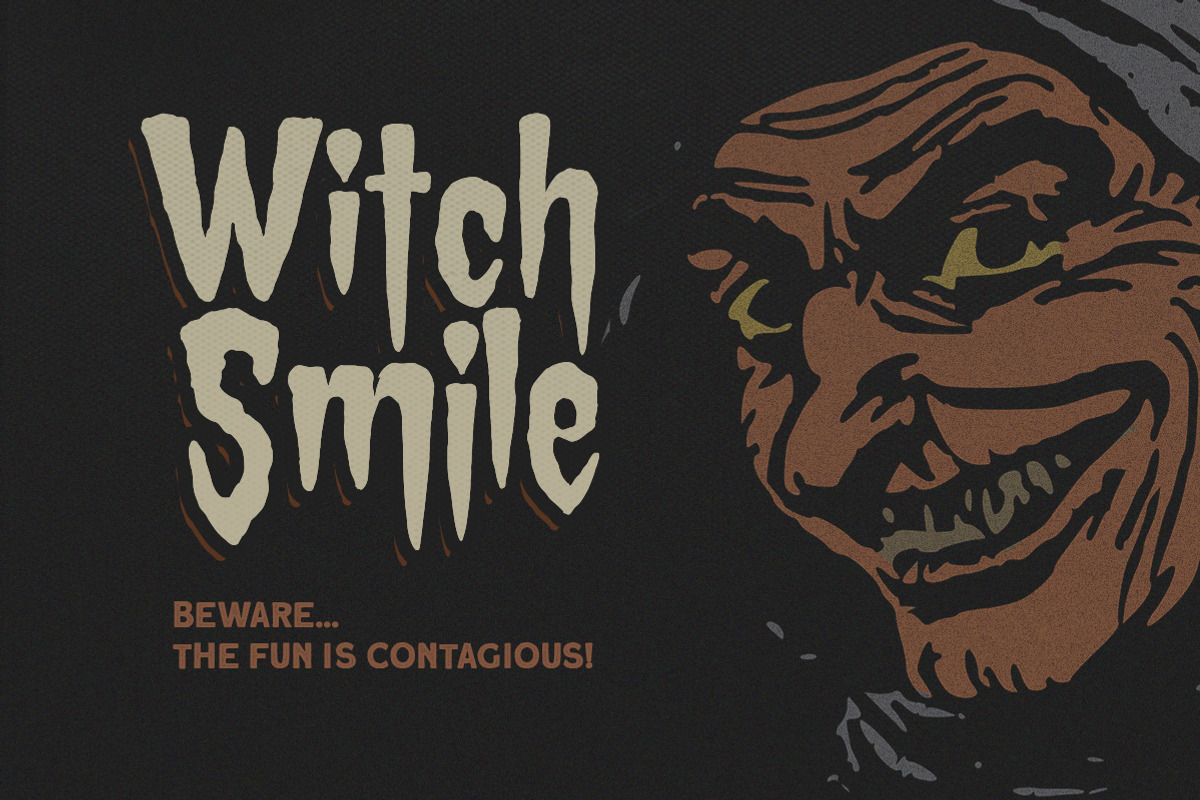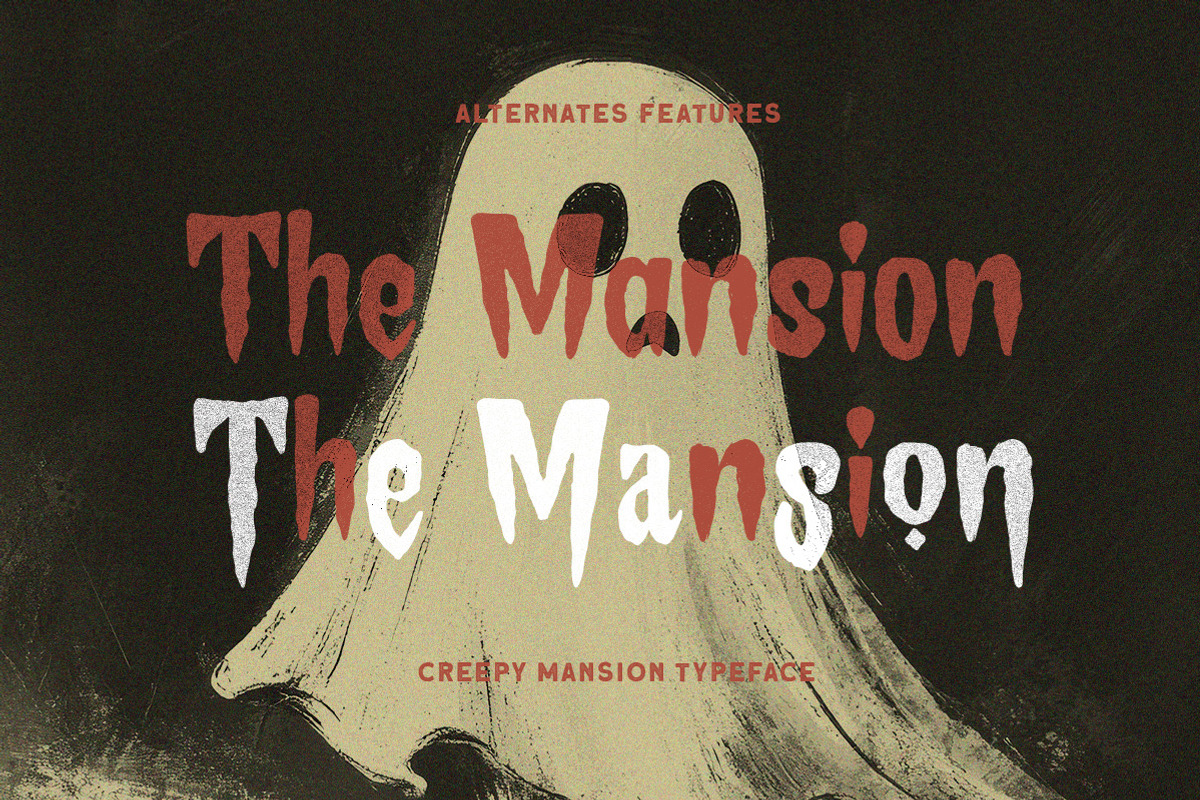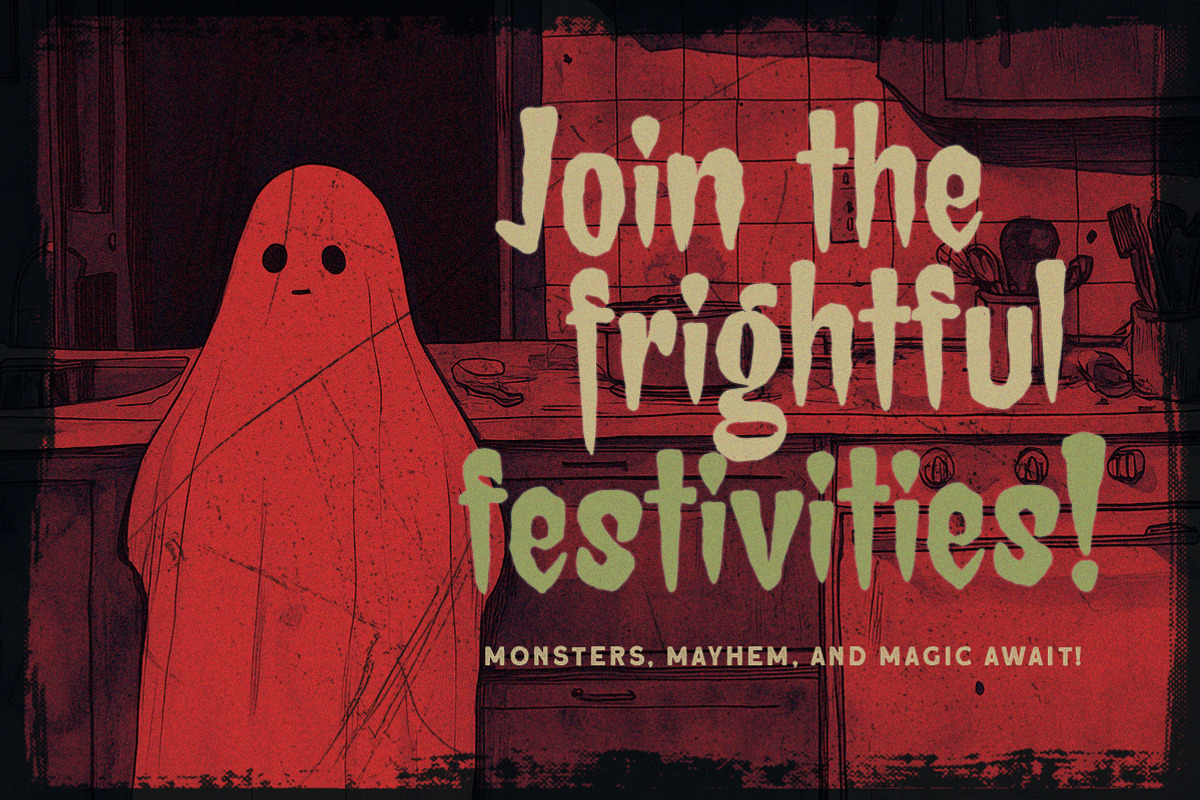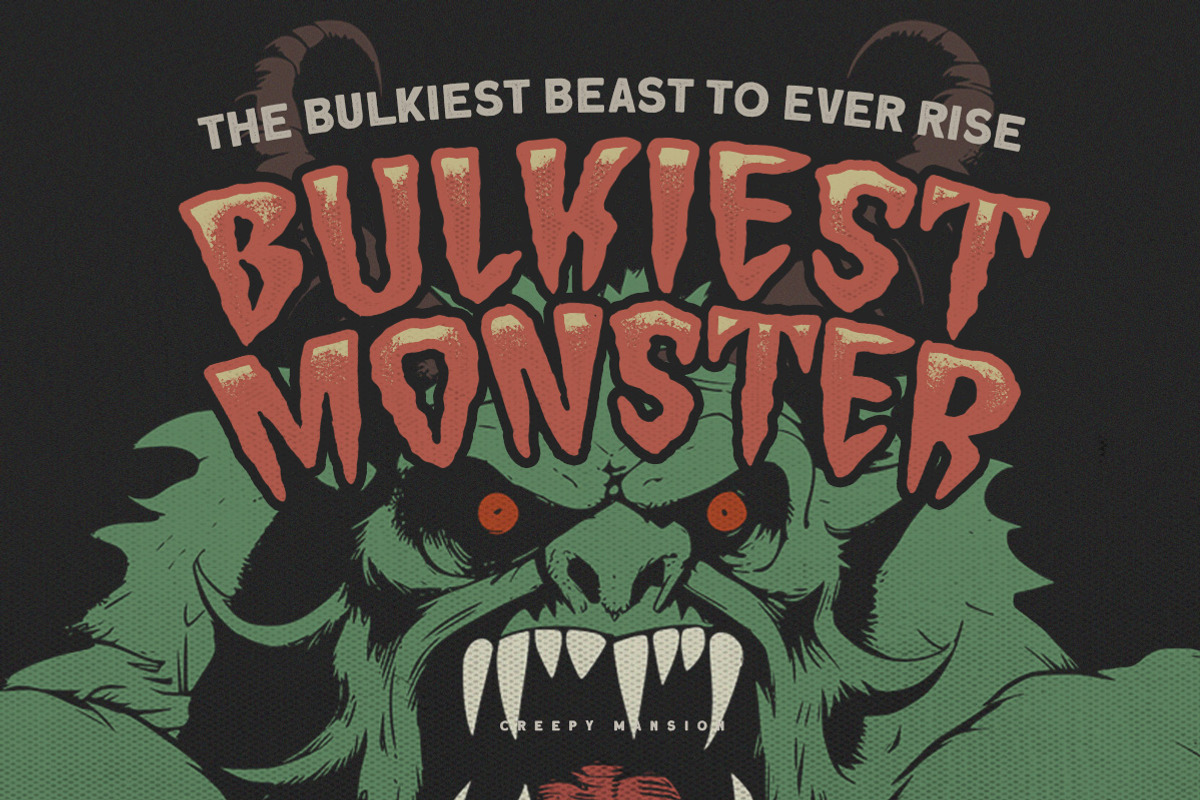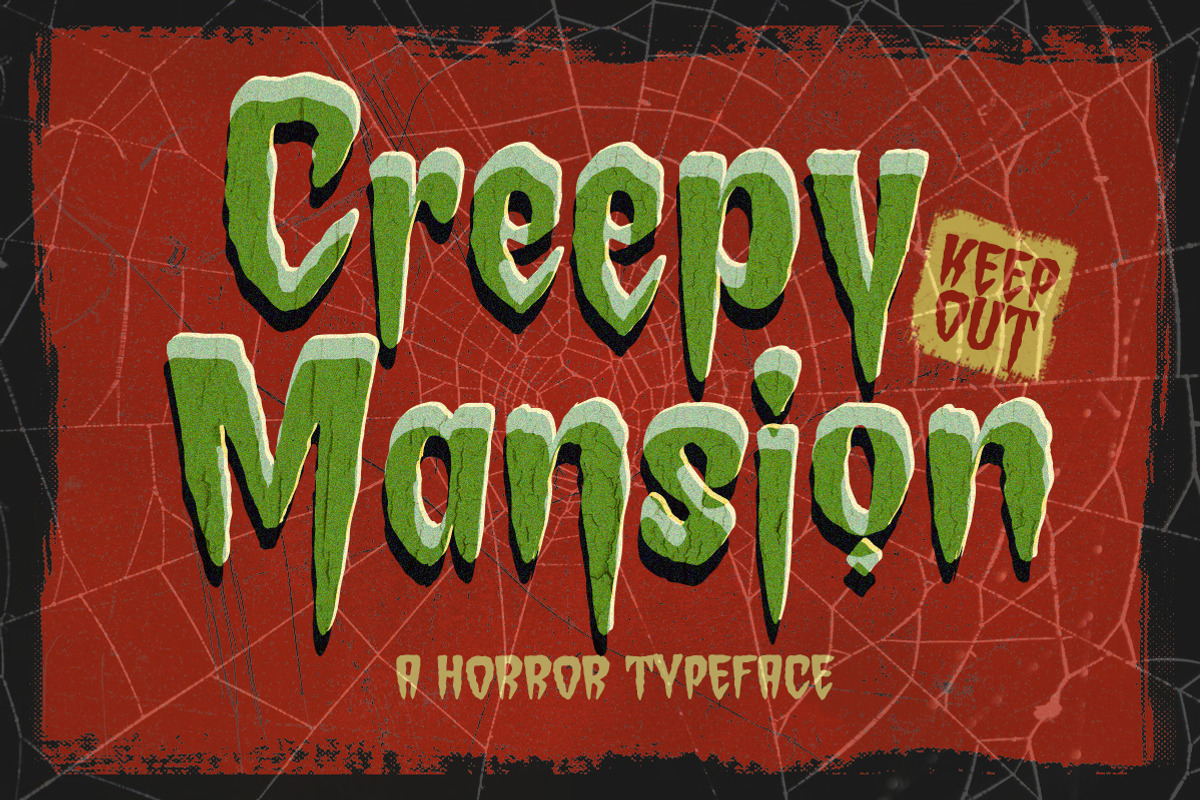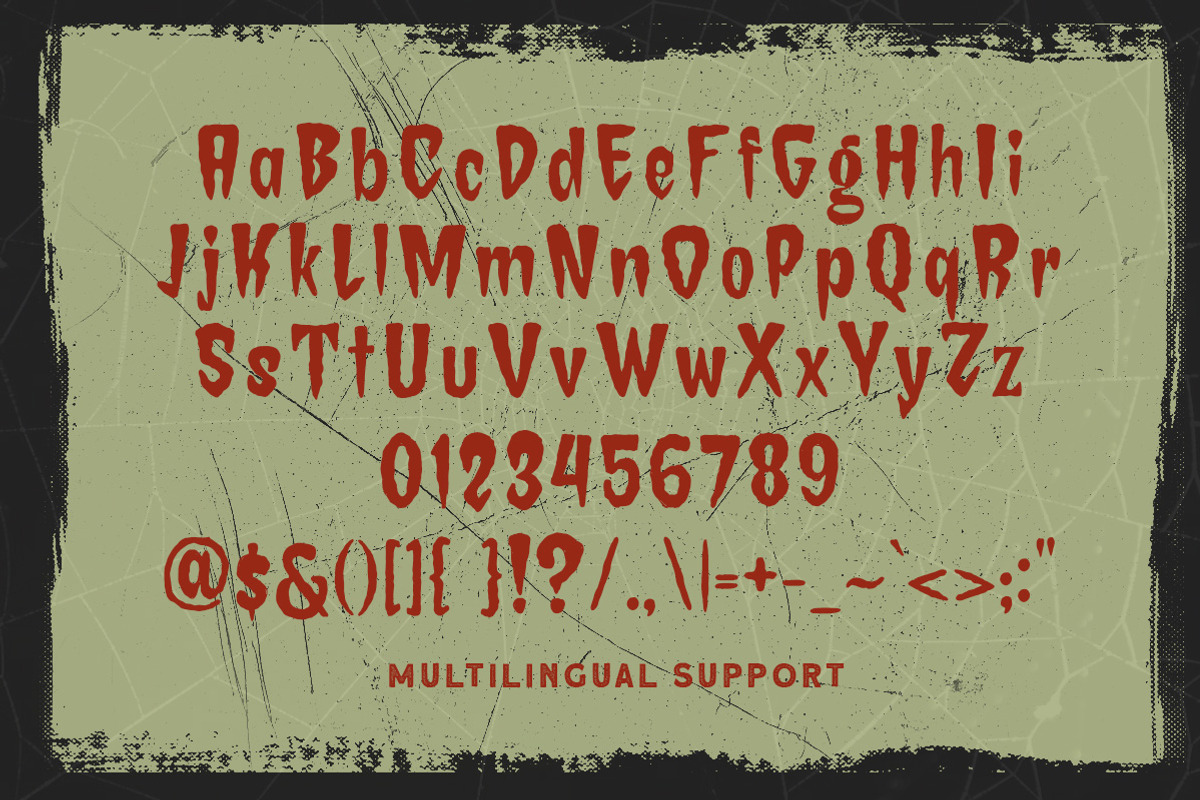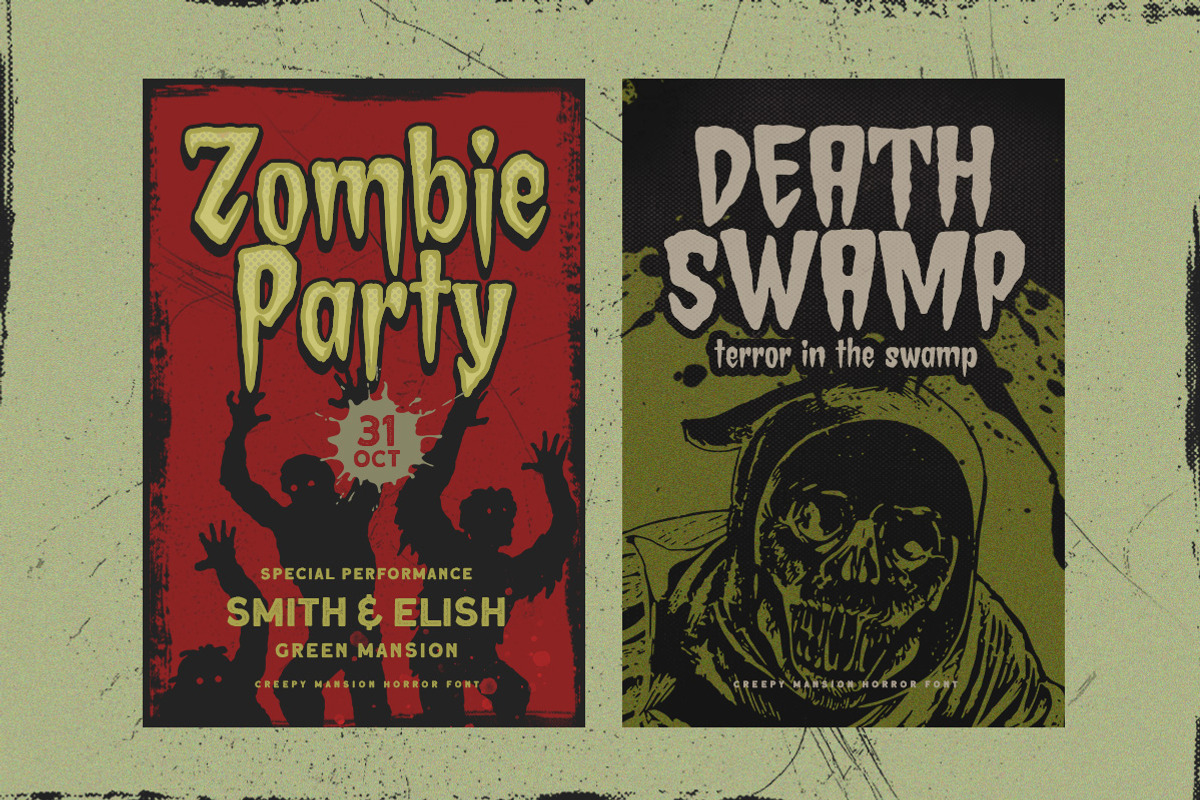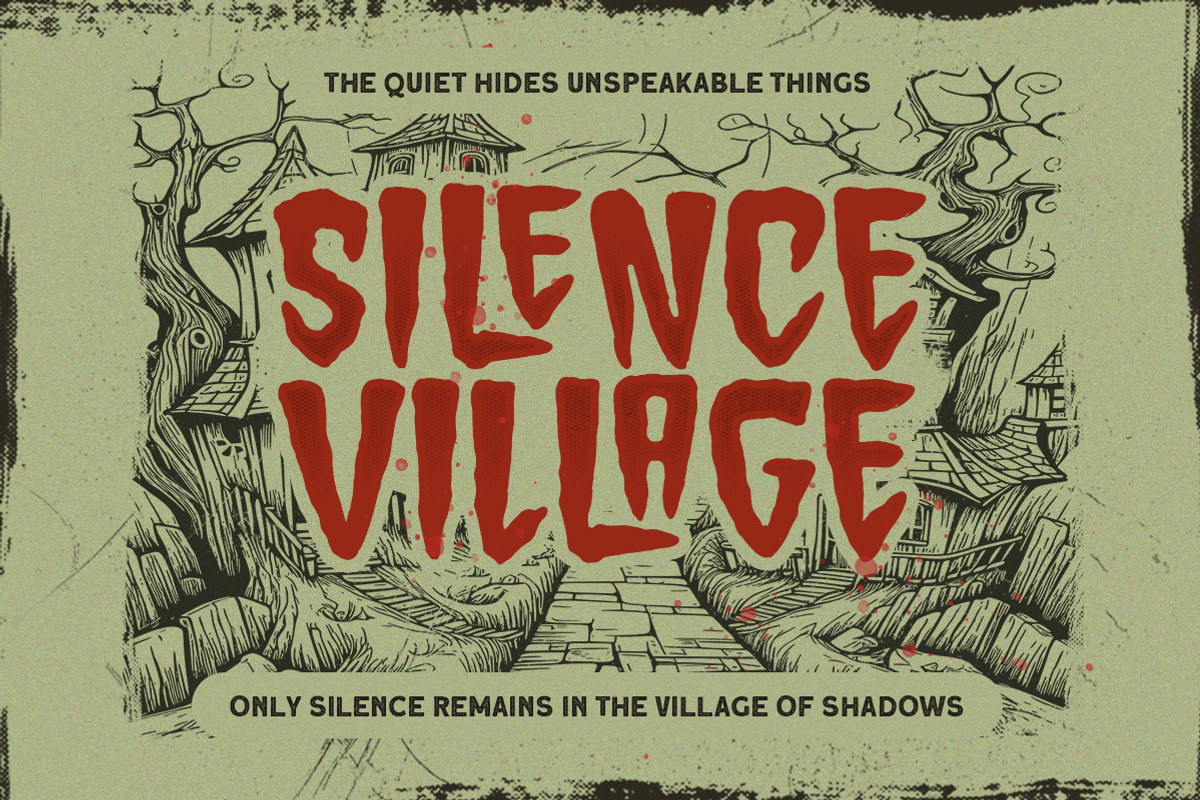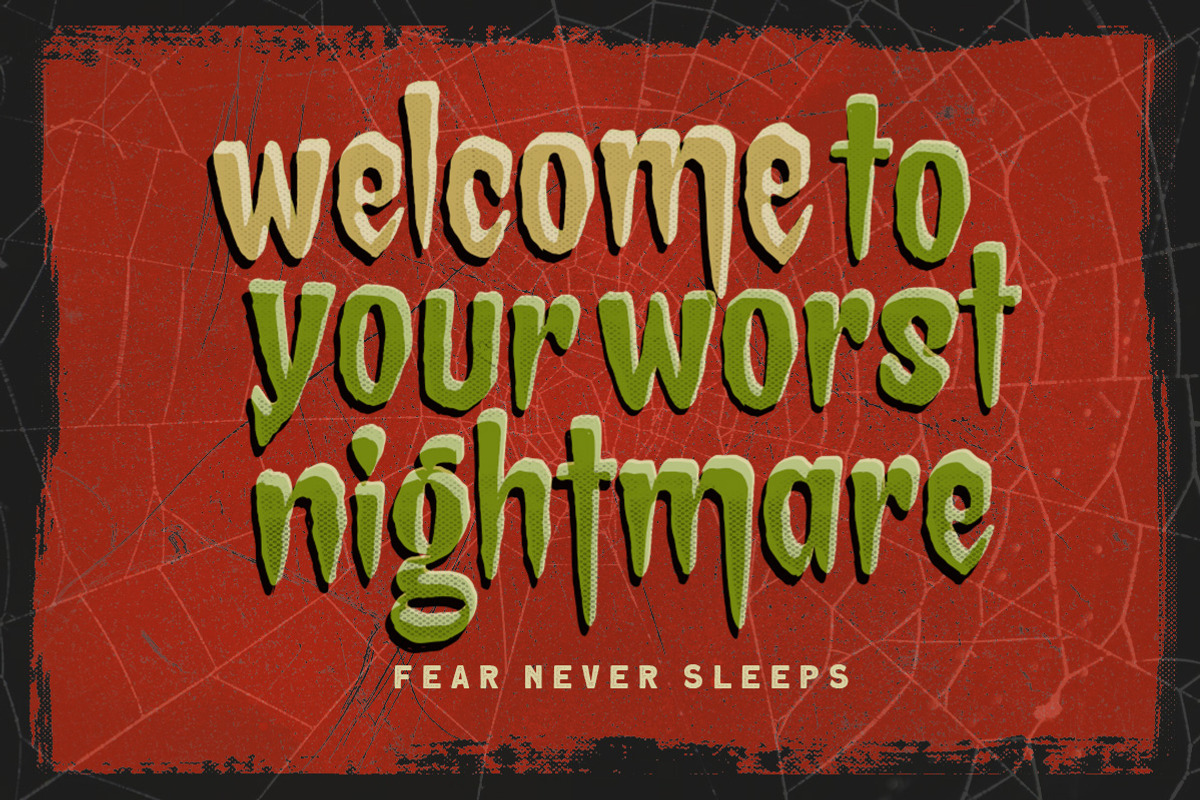
Creepy Mansion Horror Typeface
Embrace the macabre with our latest font creation, Creepy Mansion – a hauntingly mesmerizing horror display font that beckons to the shadows. Prepare to embark on a spine-tingling journey into the darkest realms of design, where fear and fascination intertwine.